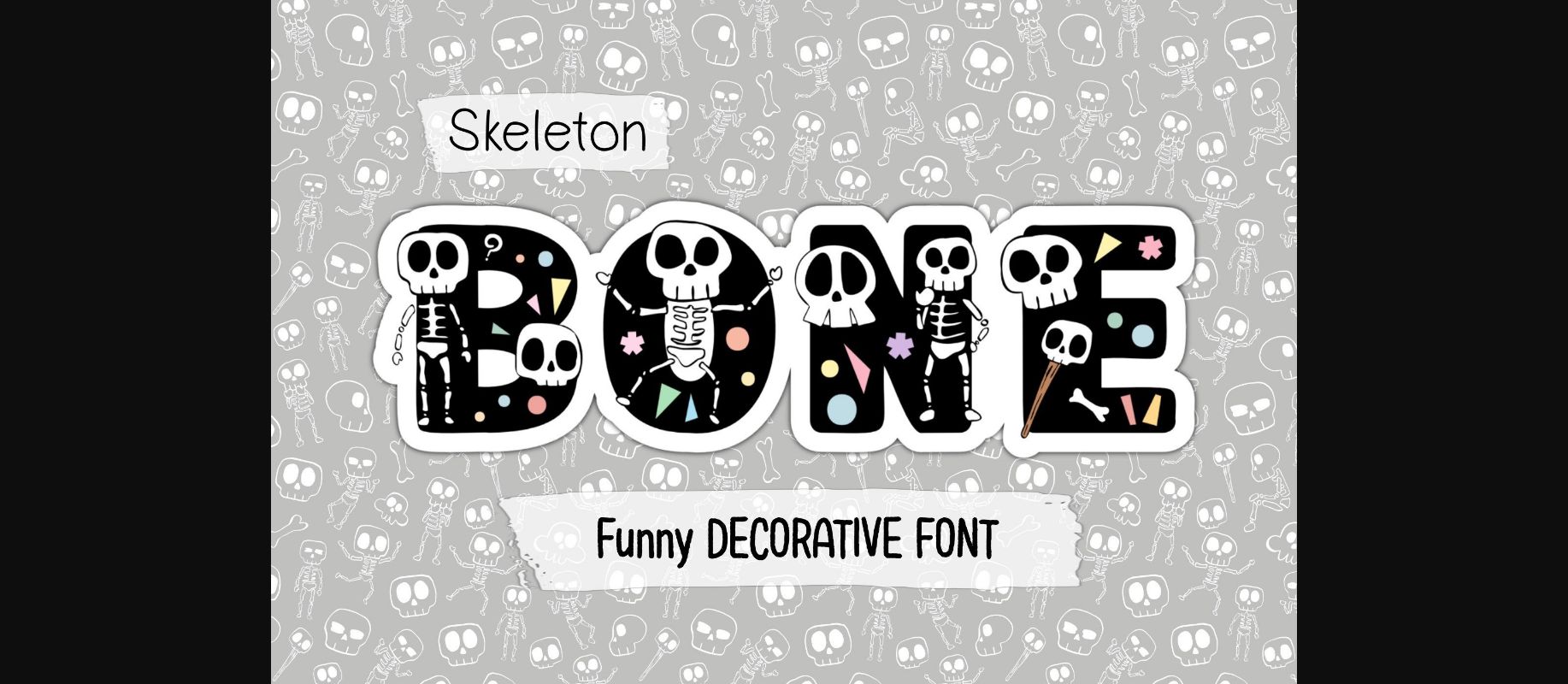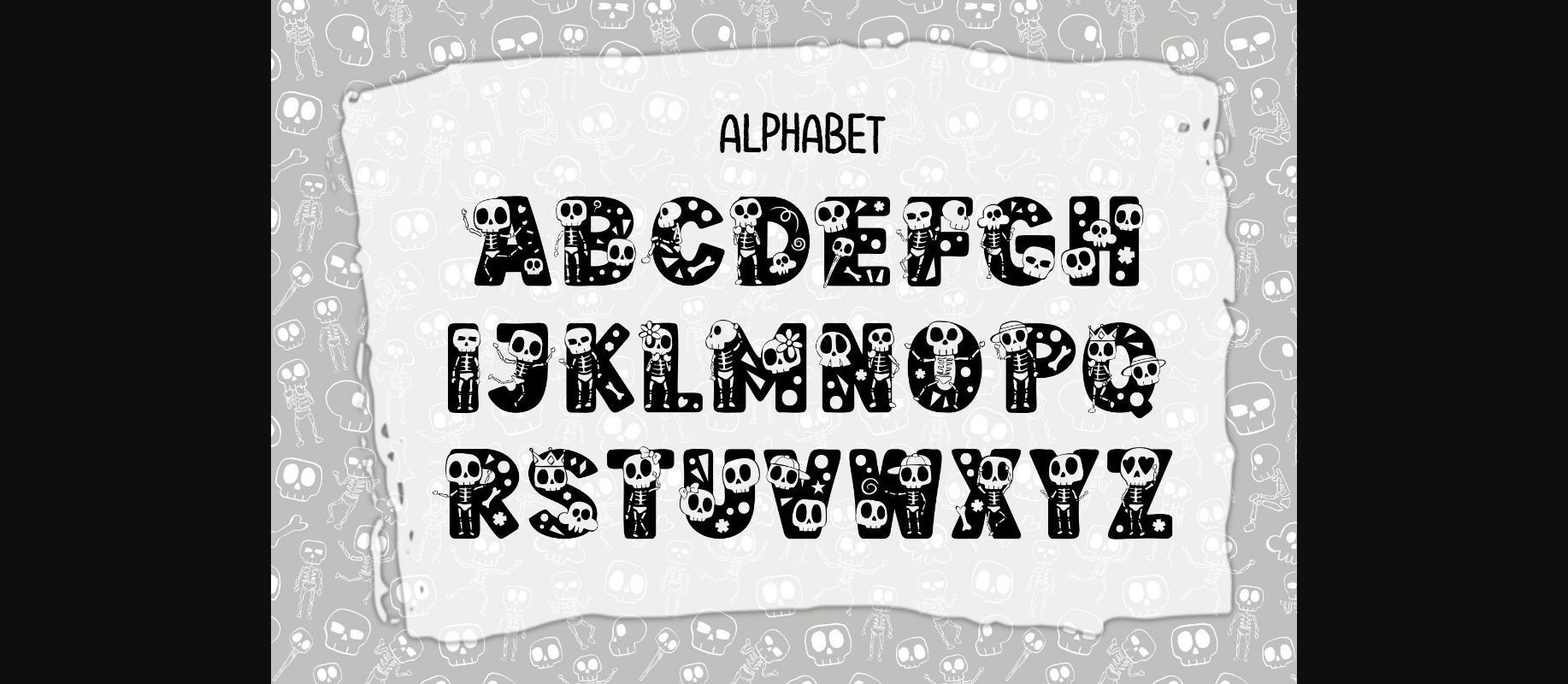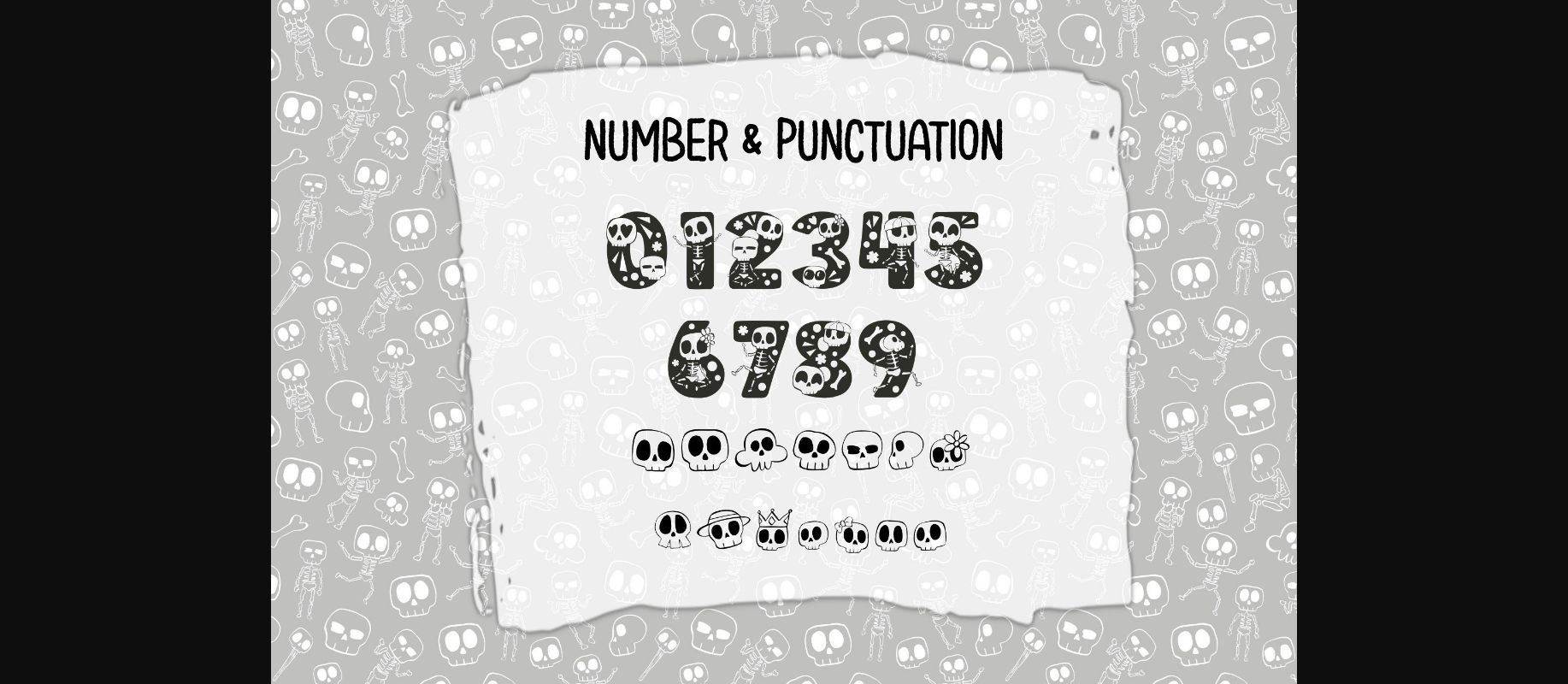
HomeDecorative FontsSkeleton Bone Font Decorative Fonts Skeleton Bone Font FacebookXPinterestWhatsApp 1 of 6 ... Skeleton Bone Font Poster 2... Skeleton Bone Font Poster 3... Skeleton Bone Font Poster 4... Skeleton Bone Font Poster 5... Skeleton Bone Font Poster 6... About Skeleton Bone Font Skeleton Bone is a fun and spooky decorative font. Whimsical and a little bit mysterious, this font is perfect for all your Halloween projects. DOWNLOAD NOW People also explored Buttercup Font Roska Font Jungle Cruise Font Rebella Font Happy Valentine Font Winter Star Font Bolad Roprang Font Dream Unicorn Font Halloween Teacher Font 449 0 TagsSkeleton Bone Font Previous articleCat FontNext articleCute Dog Font LEAVE A REPLY Cancel reply Comment: Please enter your comment! Name:* Please enter your name here Email:* You have entered an incorrect email address! Please enter your email address here Website: Save my name, email, and website in this browser for the next time I comment. Personal Use Free Zroest Personal Use Free Read more about this font Lanilla Personal Use Free Read more about this font Hollster Personal Use Free Read more about this font Aliqa Personal Use Free Read more about this font BLOG Free Fonts Risk: Why Free Fonts Can Be Dangerous for Designers Free Fonts Risk: Why Free Fonts Can Be Dangerous for Designers Using free fonts is a common practice in web and graphic design. However, the... Elegant Wedding Invitation Fonts – Handwritten & Script Fonts Fonts That Capture the Spirit of New York City Free vs Paid Fonts: Why Investing in Premium Fonts Is Worth It